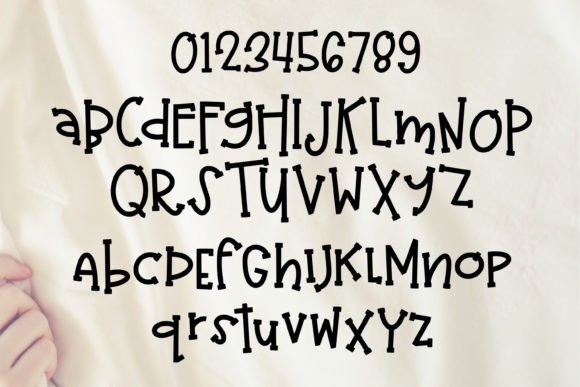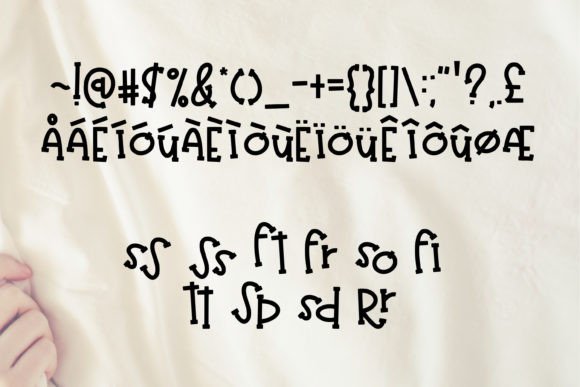
Introduction to Hello Naptime Font
Say hello to creativity with Hello Naptime, the playful, quirky font that feels like a cozy dream.
With its bold, hand-drawn style and a delightful touch of whimsy, this font is perfect for adding a fun and relaxed vibe to your designs Whether youโre crafting for kids, or simply want to infuse your work with a bit of carefree charm, Hello Naptime is the perfect pick.
Key Features of Hello Naptime Font
Why Choose Hello Naptime Font?